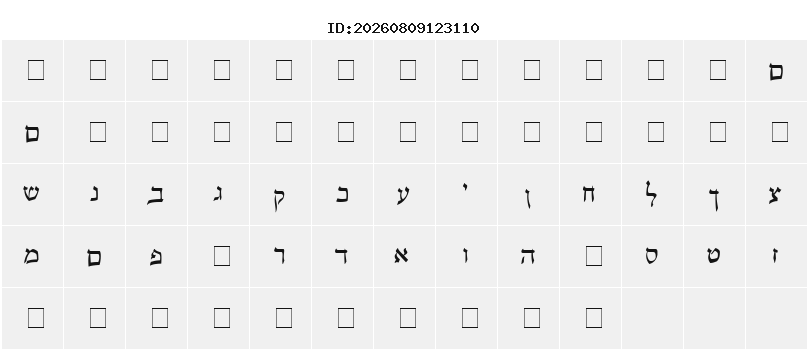
• Font Name: Pecan_ Sonc_ Hebrew
• Full Font Name: Pecan_ Sonc_ Hebrew
About Pecan_ Sonc_ Hebrew.ttf
Pecan_ Sonc_ Hebrew.ttf is a modern, elegant sans-serif font designed for ultimate readability and visual harmony. Perfect for branding, headlines, web design, and print materials.